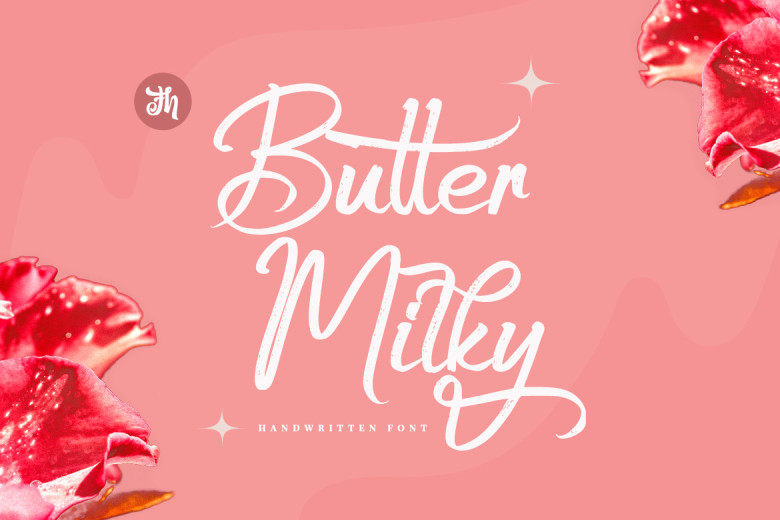
Butter Milky Font
Butter Milky is a beautiful script font that includes loads of glyphs. So if you’re seeking to brand any products such as logos, t-shirt printing, or creative products and so on then it is perfect for you. The options available in the free version include the letters in both uppercase and lowercase as well as a few other symbols.
Butter Milky Handwritten Script Font